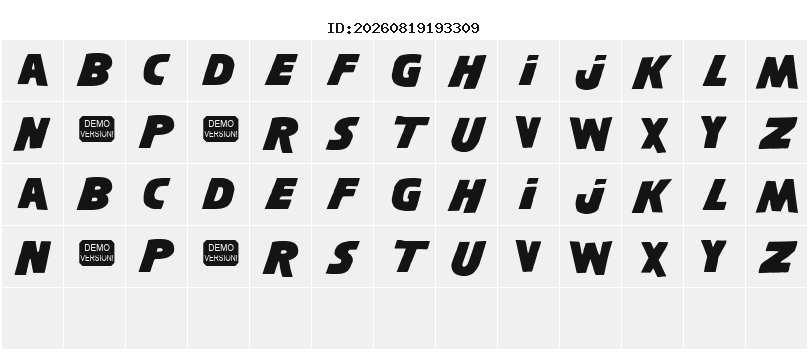
Shining NFI Demo Preview
• Font Name: Shining NFI Demo
• Font ID: NorfokInc.FontDesign: Shining NFI Demo: 2002
• Full Font Name: Shining NFI Demo
• PostScript Name: ShiningNFIDemo
• Character Count: 56
• Designer: Thomas W. Otto
• Manufacturer: Norfok Inc. Font Design
About Shining NFI Demo.ttf
Shining NFI Demo.ttf is a modern, elegant sans-serif font designed for ultimate readability and visual harmony. Perfect for branding, headlines, web design, and print materials.